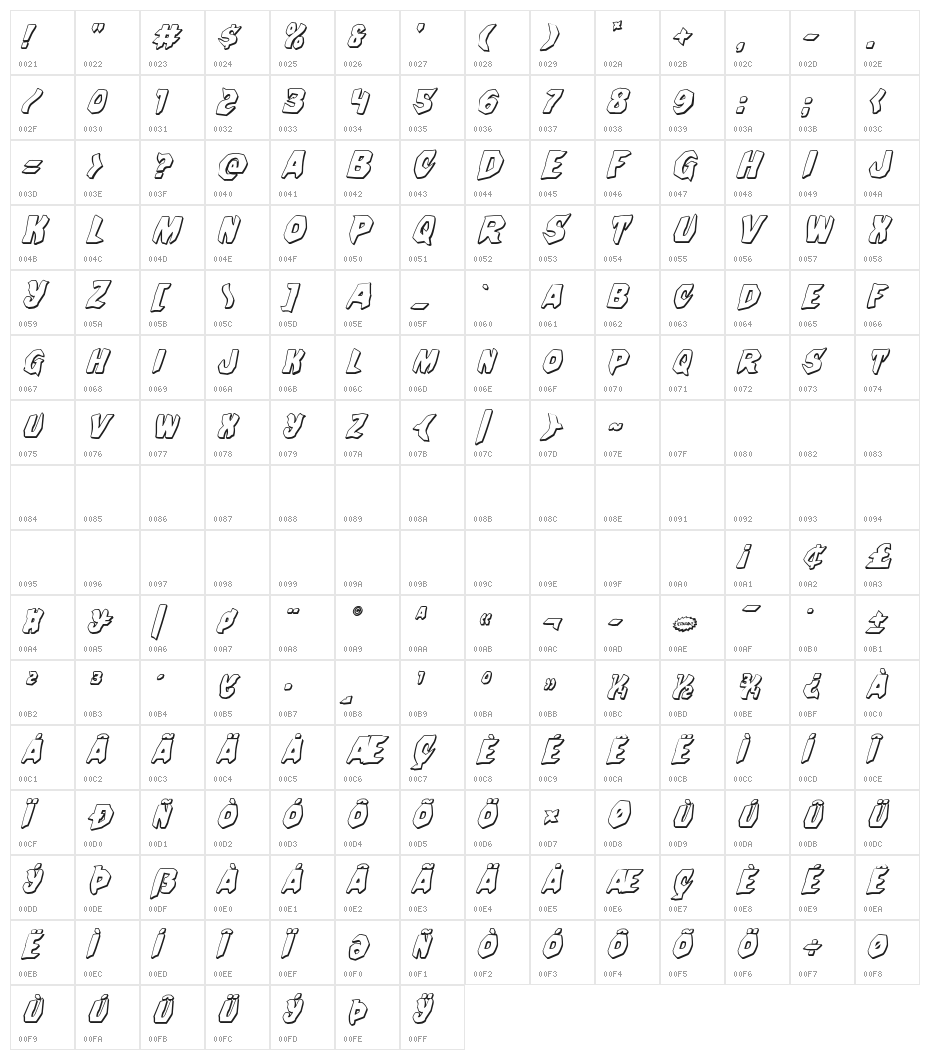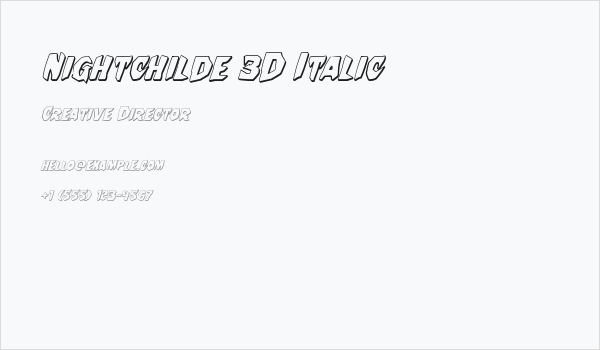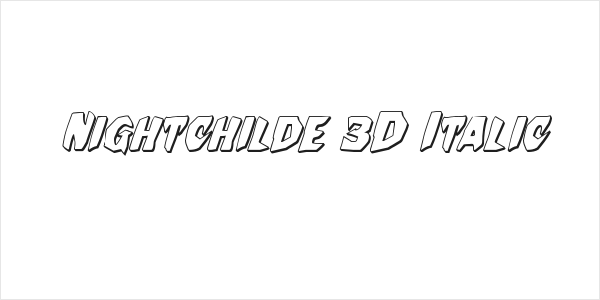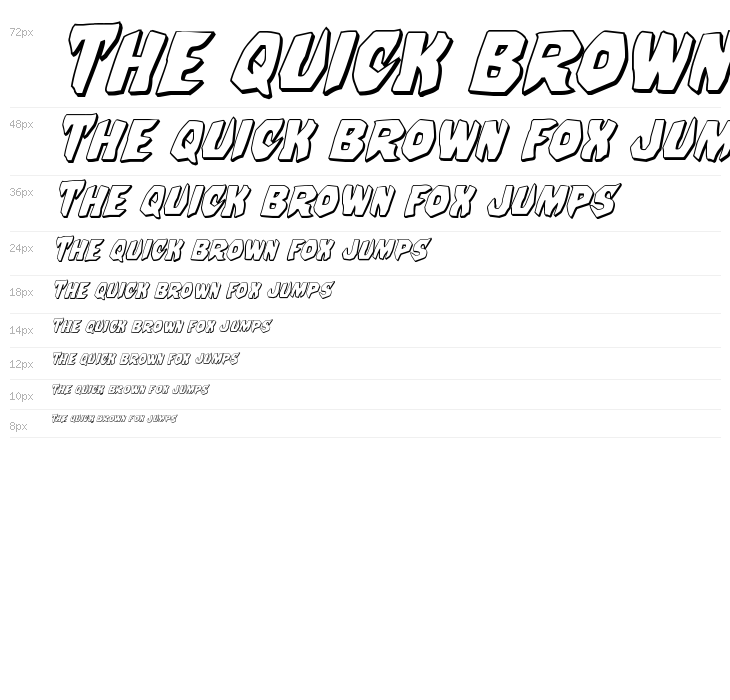
Nightchilde 3D Italic Font
Nightchilde 3D Italic Description
This font features a bold, three-dimensional design with an italic slant, giving it a dynamic and energetic appearance. The characters are outlined, creating a shadow effect that enhances the 3D illusion. The style is playful and eye-catching, making it ideal for projects that require a strong visual impact. The uppercase and lowercase letters maintain a consistent style, with angular edges and a slightly condensed form. The numerals and special characters follow the same design principles, ensuring uniformity across all glyphs.
| Proposed Projects | Ideal for comic book titles, video game graphics, posters, and any project needing a bold, attention-grabbing font. |